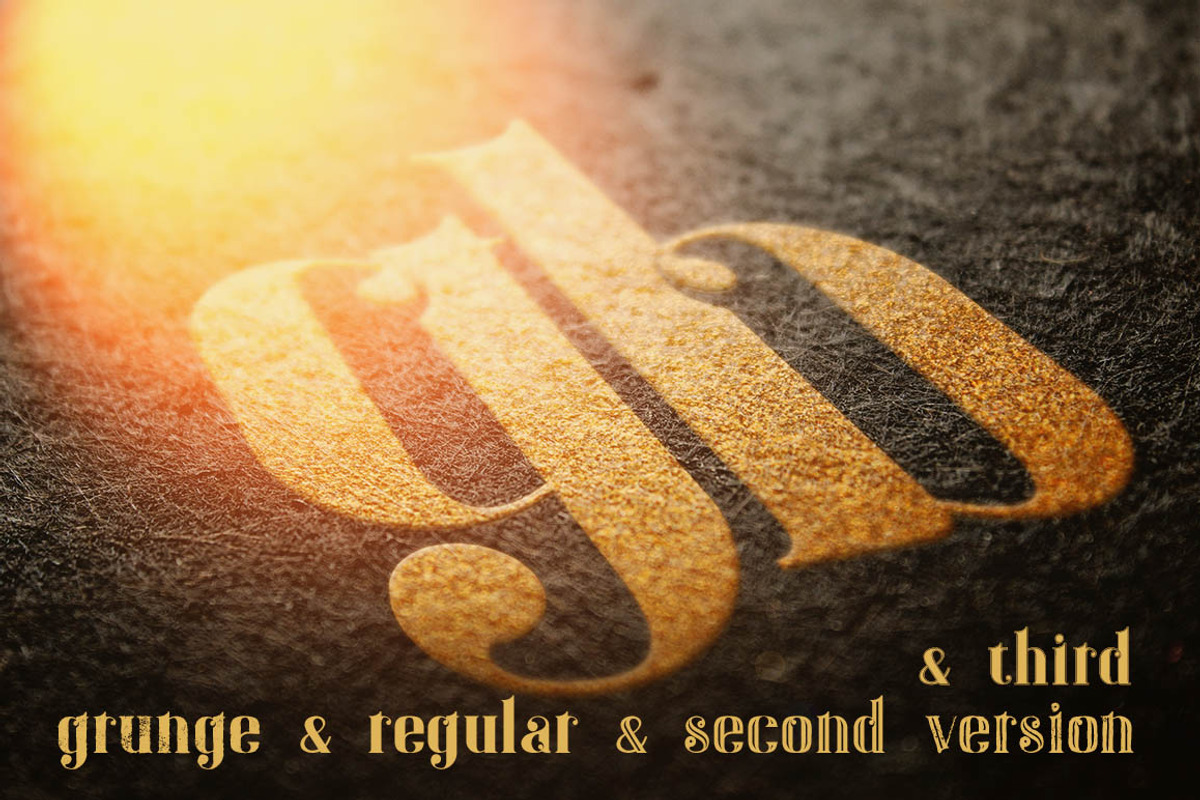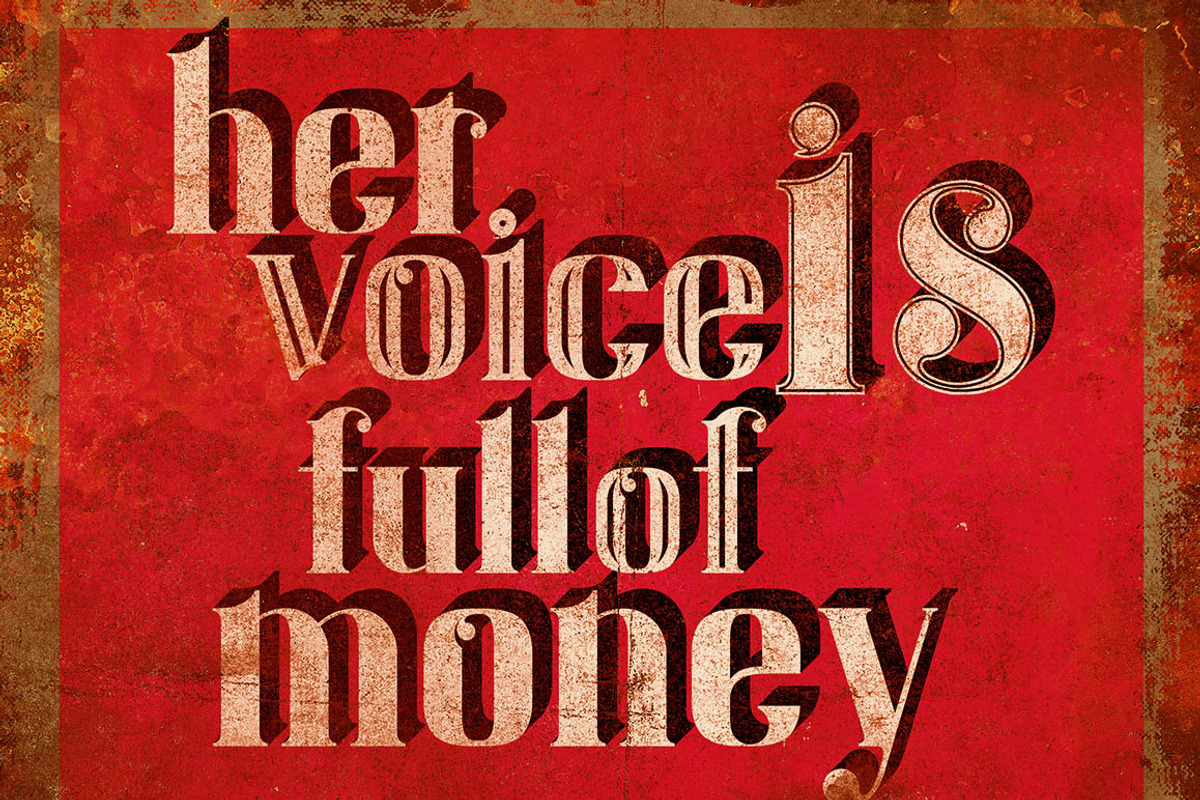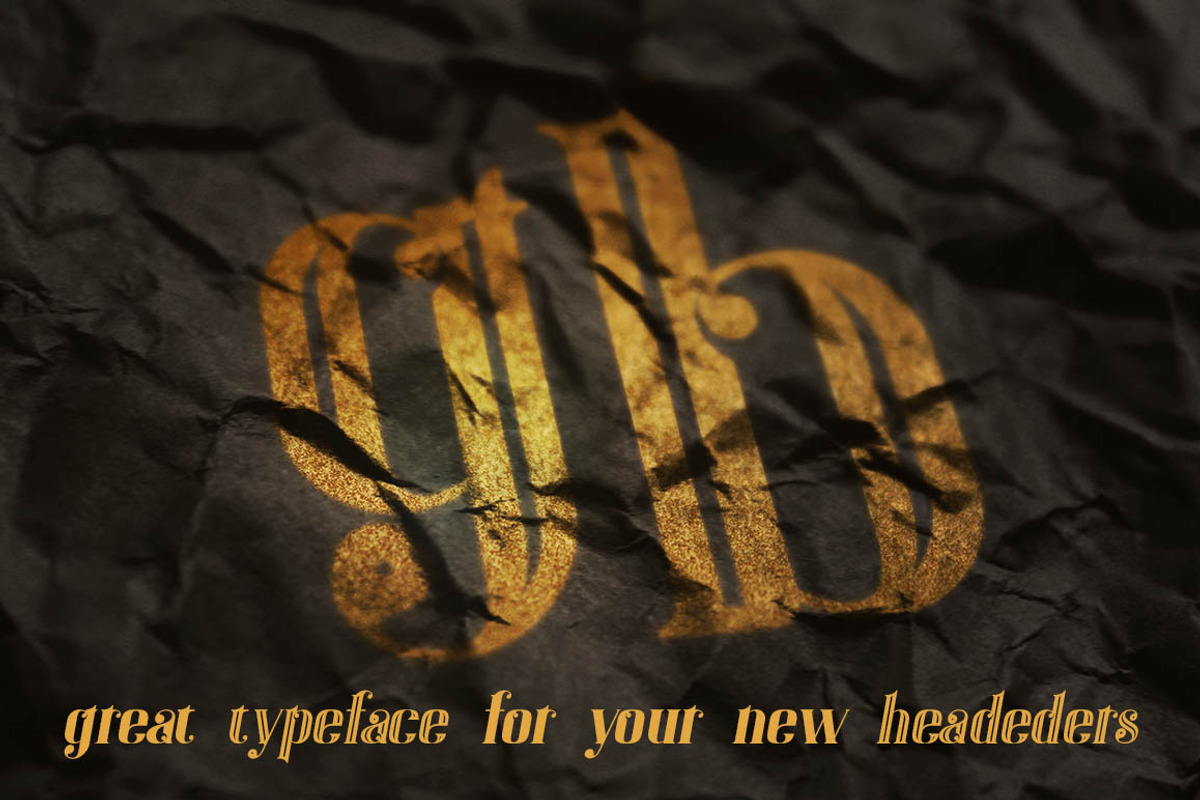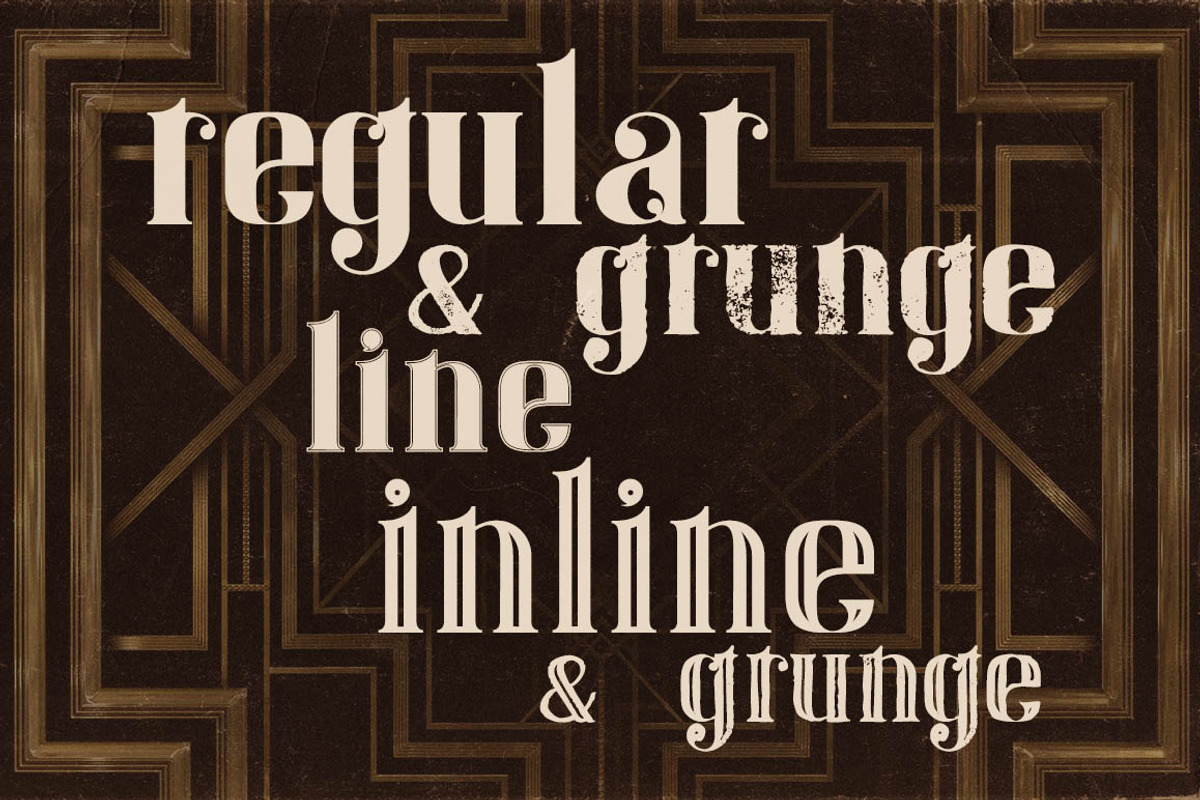
Gatsby - ArtDeco Font
Gatsby - ArtDeco Font by Cruzine is a font selected for branding, posters, packaging, typography.
Why Gatsby - ArtDeco Font is worth a look
Gatsby - ArtDeco Font by Cruzine fits naturally into Branding, posters, packaging, typography.